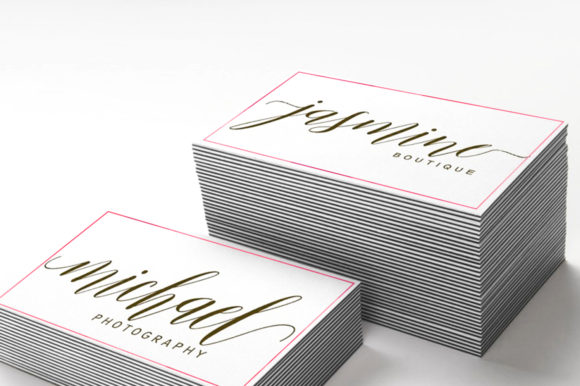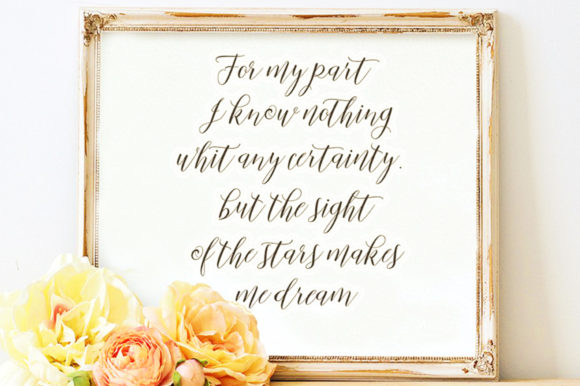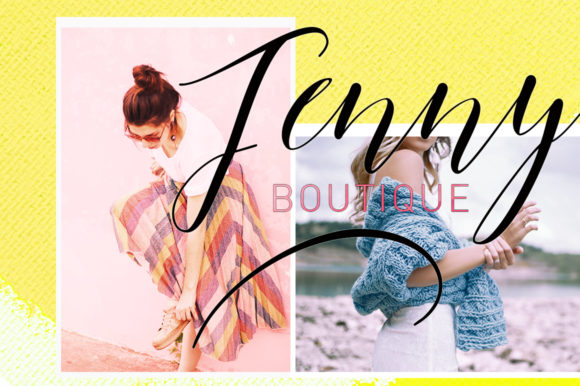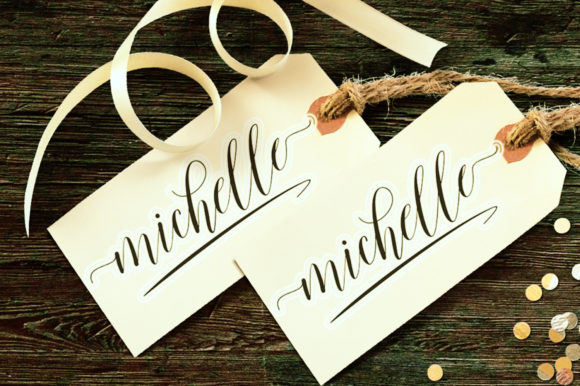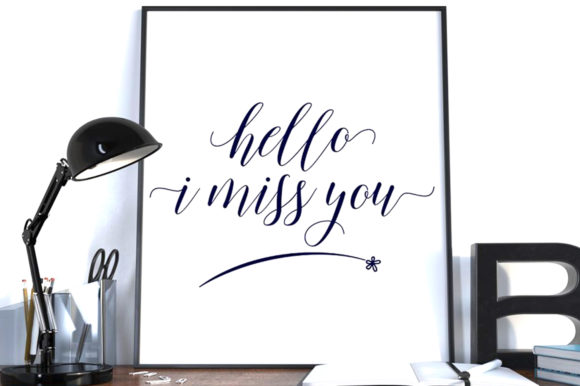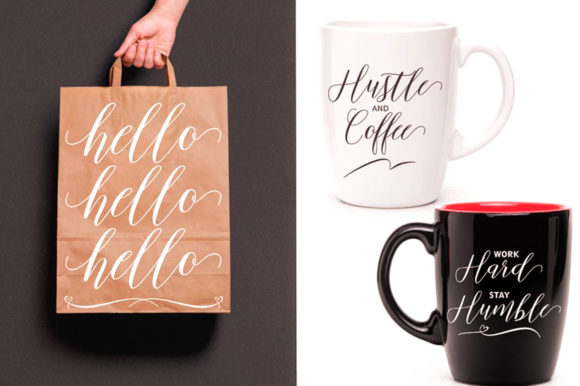
Introduction to Mallicot Font
You know that moment when you’re working on a creative project and you need the perfect font to bring your idea to life? The search is on, and you scroll through page after page of options, hoping to find the one that makes your design truly stand out. If you’re a designer, you understand the importance of having a reliable design resource that can elevate your work. And that’s exactly what the Mallicot Font offers – a modern script font with a playful style that’s sure to captivate your audience.
With its high-quality design and transparent background, the Mallicot Font is perfect for any creative project that needs a touch of elegance and sophistication. And the best part? It’s available for free download, making it an invaluable resource for designers of all levels. Whether you’re working on a personal project or a client-based design, the Mallicot Font is sure to be a valuable addition to your design arsenal.
Key Features of Mallicot Font
• Unique and Creative Design: Mallicot Font is a high-quality design resource perfect for creative projects that require a distinctive and modern touch.
• Transparent Background: This font features a transparent background, making it ideal for designers who want to add a touch of elegance to their designs.
• High Resolution: The font is available in high resolution, making it perfect for designers who need a crisp and clear font for their creative projects.
• Size: The font is available in a range of sizes, from 10 to 72 points, allowing designers to customize the font to fit their specific design needs.
• Perfect for Designers: Mallicot Font is a must-have for designers who are looking for a unique and high-quality font to elevate their creative projects.
Honest Review: Mallicot Font
I recently had the chance to work with the Mallicot Font, and I must say it’s a fantastic addition to any designer’s toolkit. As a design resource, it offers a high quality, elegant look that’s perfect for creative projects.
• ✨ Beautiful aesthetic: The Mallicot Font boasts a clean and sophisticated design that’s sure to elevate any project.
• ✨ High resolution: The font is available in high resolution, making it perfect for large-scale designs or print materials.
However, there are a few limitations to consider. The font only comes in a few weights, which may limit its versatility for some projects.
• ⚠️ Limited weights: The Mallicot Font only comes in a few weights, which may not be ideal for projects that require a wide range of font styles.
Overall, I’m thoroughly impressed with the Mallicot Font. Its high quality design and free download make it a must-have for any designer looking to add some elegance to their creative project. While it may have some limitations, I believe the benefits far outweigh the drawbacks.
Tips for Getting the Most Out of Mallicot Font
Experiment with different font sizes, colors, and styles to achieve the desired look for your design project. Use the font in conjunction with other design elements to create a visually appealing and creative project.
The Mallicot Font is ideal for designing logos, posters, brochures, and other marketing materials. It is also suitable for creating digital assets such as social media graphics, email templates, and website headers.